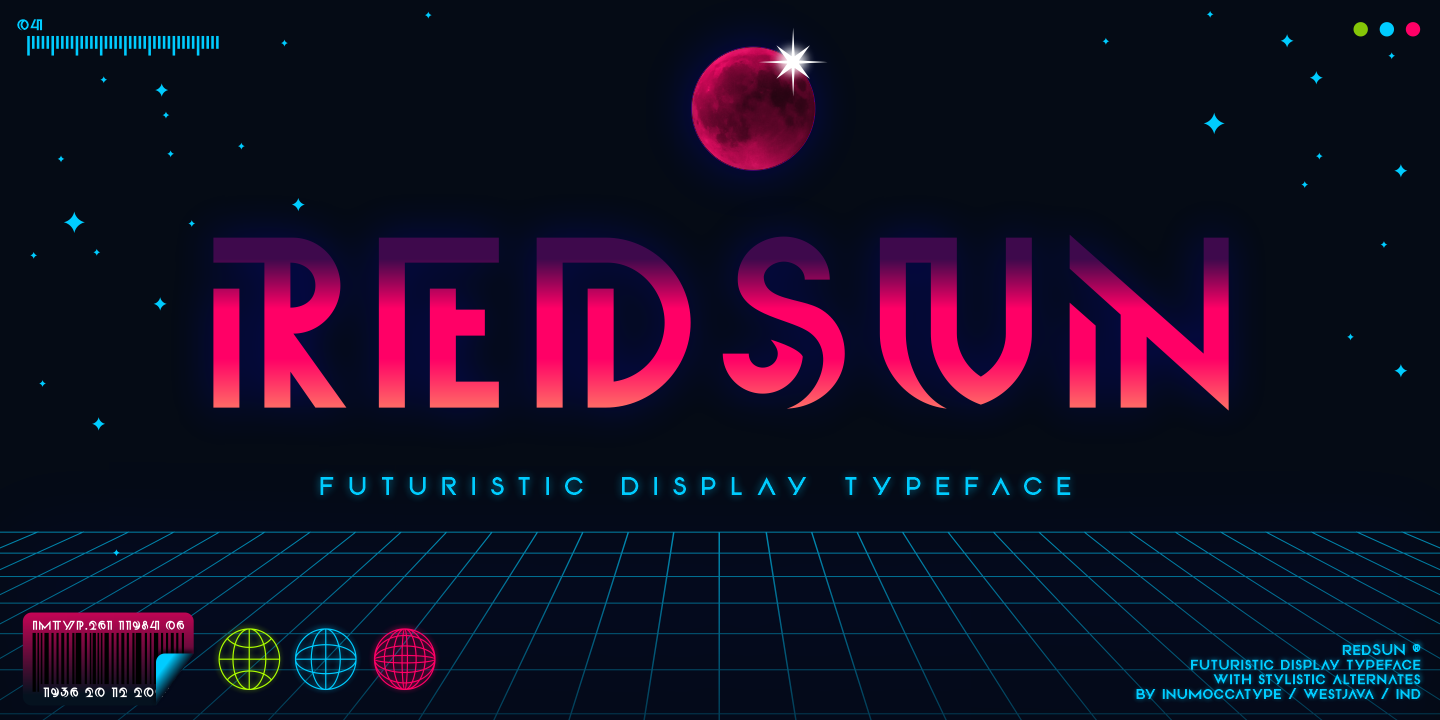
Red Sun Font Free Download – Ignite Your Designs with Bold Energy
Looking to add fiery passion and dynamic style to your creative projects? Red Sun Font Free Download is the perfect choice. This vibrant and powerful display font combines strong lines with sharp angles, evoking the warmth and intensity of a blazing sun—ideal for sports branding, music posters, event flyers, and eye-catching headlines.
Red Sun’s distinctive style commands attention without overwhelming your design. Its bold presence makes it perfect for logos, merchandise, and digital content where you want to leave a lasting impression. Whether you’re working on a high-energy campaign or a dynamic product launch, this font brings the heat.
Set your creativity ablaze with Red Sun—this font is designed to energize your projects and captivate your audience with every letter.